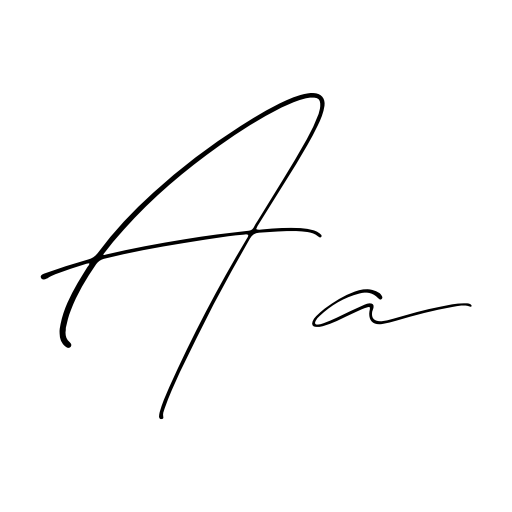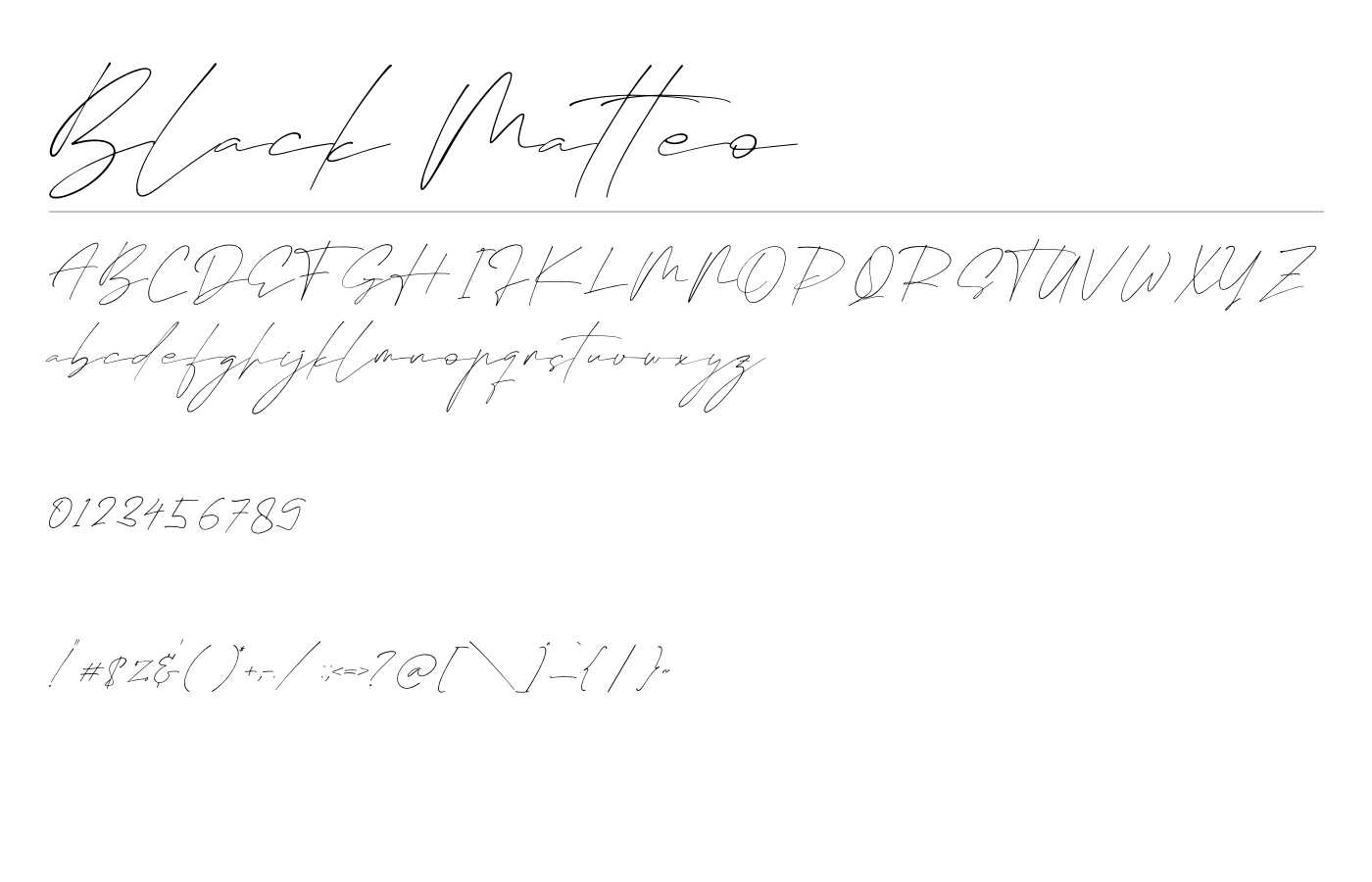
Black Matteo is a delicate, modern script font characterized by ultra-thin, graceful strokes and a handwritten, calligraphic style. Its tall, elegant letterforms and casual flow make it perfect for sophisticated branding, invitations, and editorial designs that seek a personal yet refined touch. This font works best in large display uses where its fine lines and airy feel can truly stand out and convey elegance with a contemporary flair.